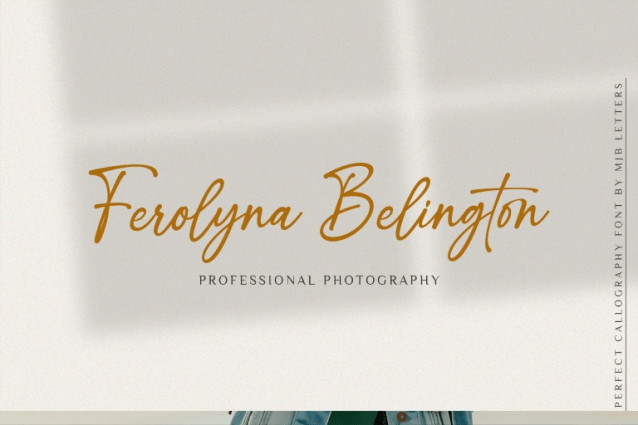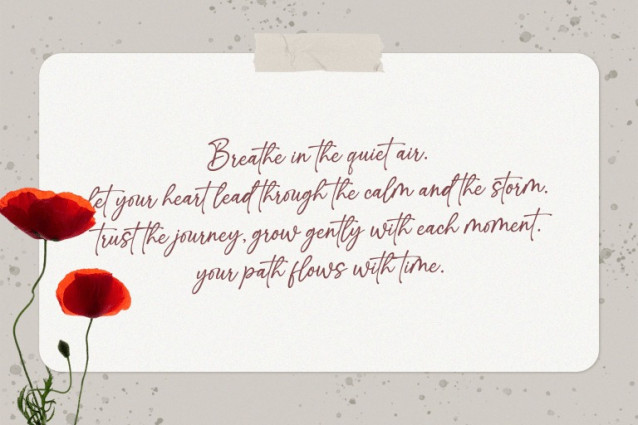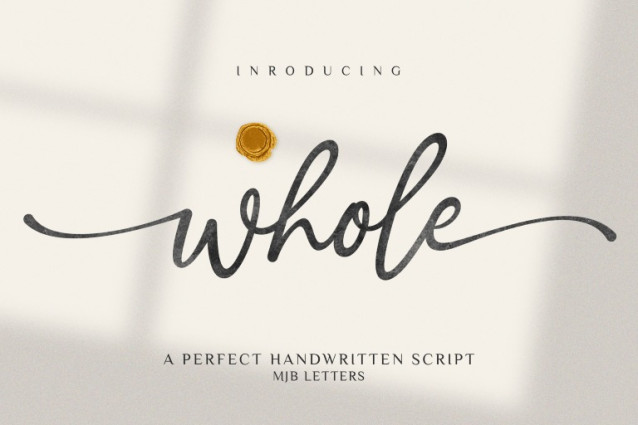
Whole Script Font
Whole Script Font is a beautifully crafted handwritten script that captures elegance and warmth in every stroke. Designed with smooth curves and a natural flow, this font brings a personal and heartfelt touch to your creative projects. Whether you’re designing for romance, branding, or daily inspiration, Whole is the perfect choice to elevate your message.